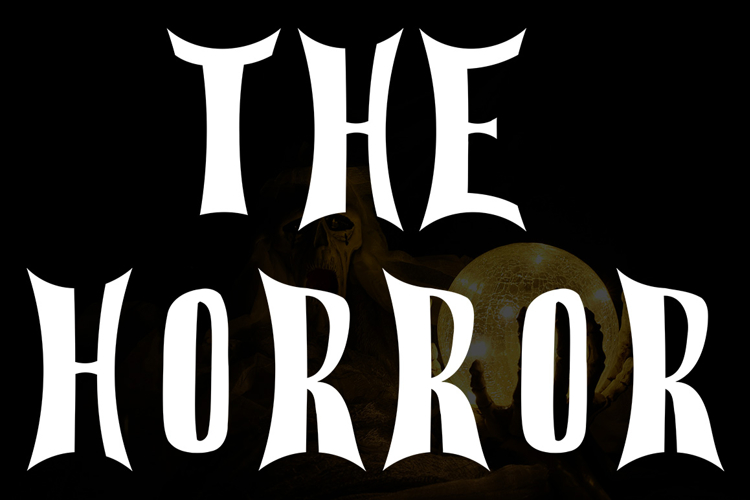
The Horror is a bold, spiky, and dramatic display font designed to bring spooky vibes to your seasonal creations.
With sharp serifs and an eerie handwritten style, this font perfectly captures the chilling thrill of Halloween.
Ideal for posters, party invites, haunted house signs, horror-themed merchandise, and more — it’s crafted to stand out in any creepy setting.
Its unique uppercase letterforms give your text a theatrical flair, making it a must-have for October projects and beyond. Embrace the frightful fun with a font that screams Halloween!